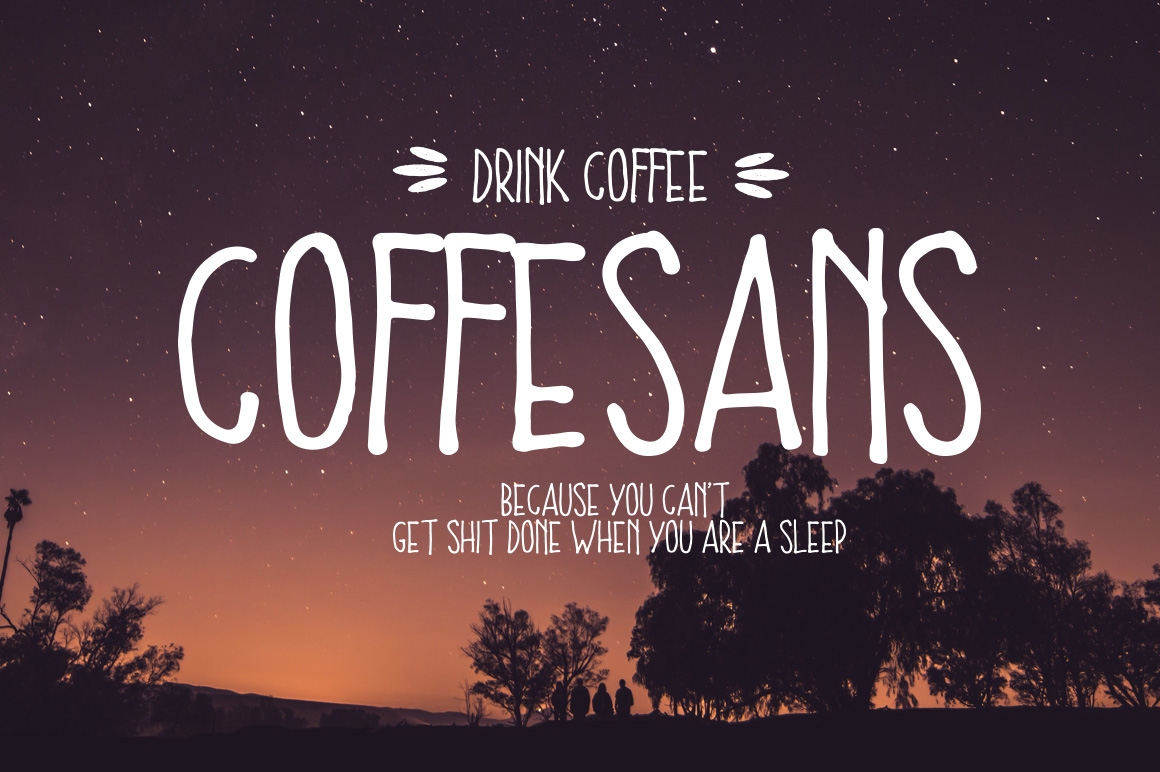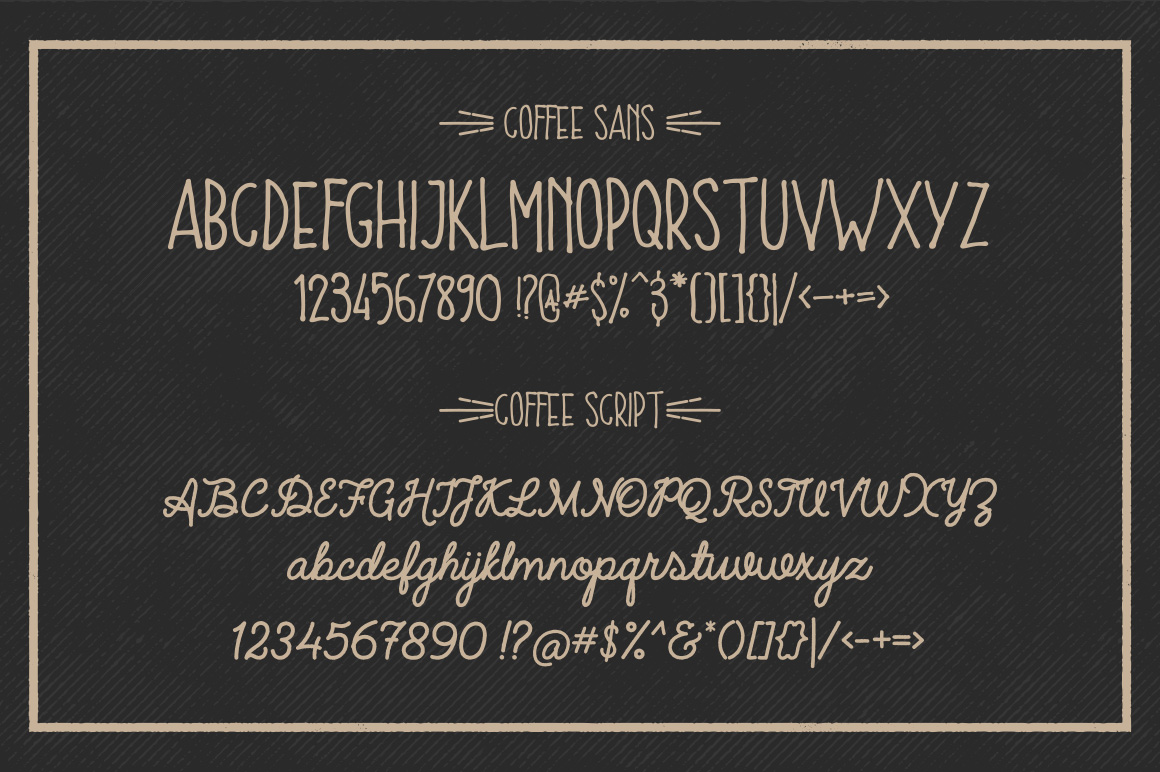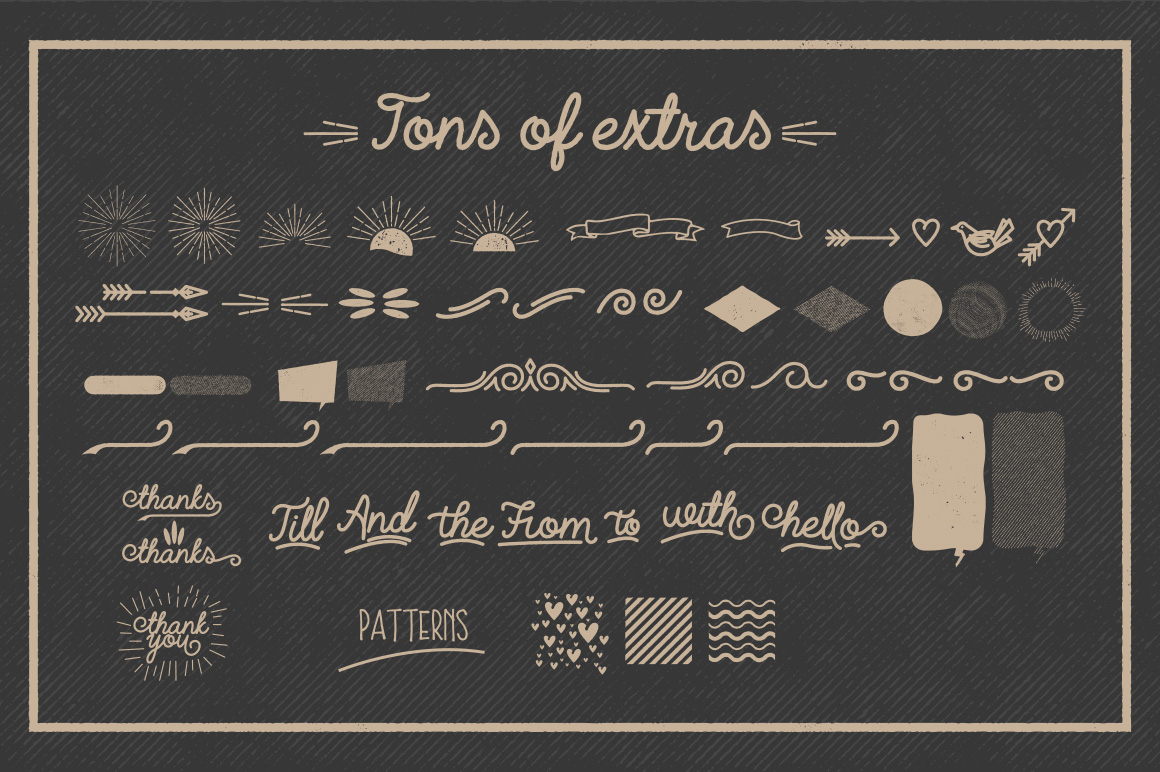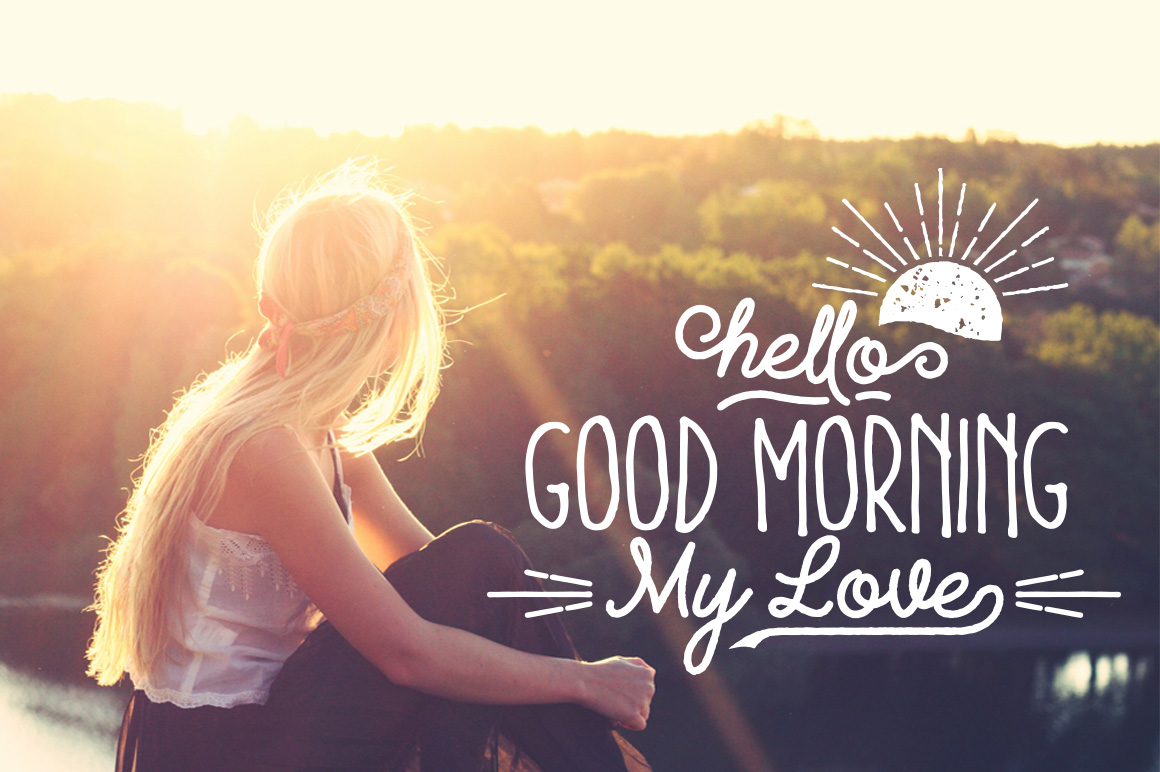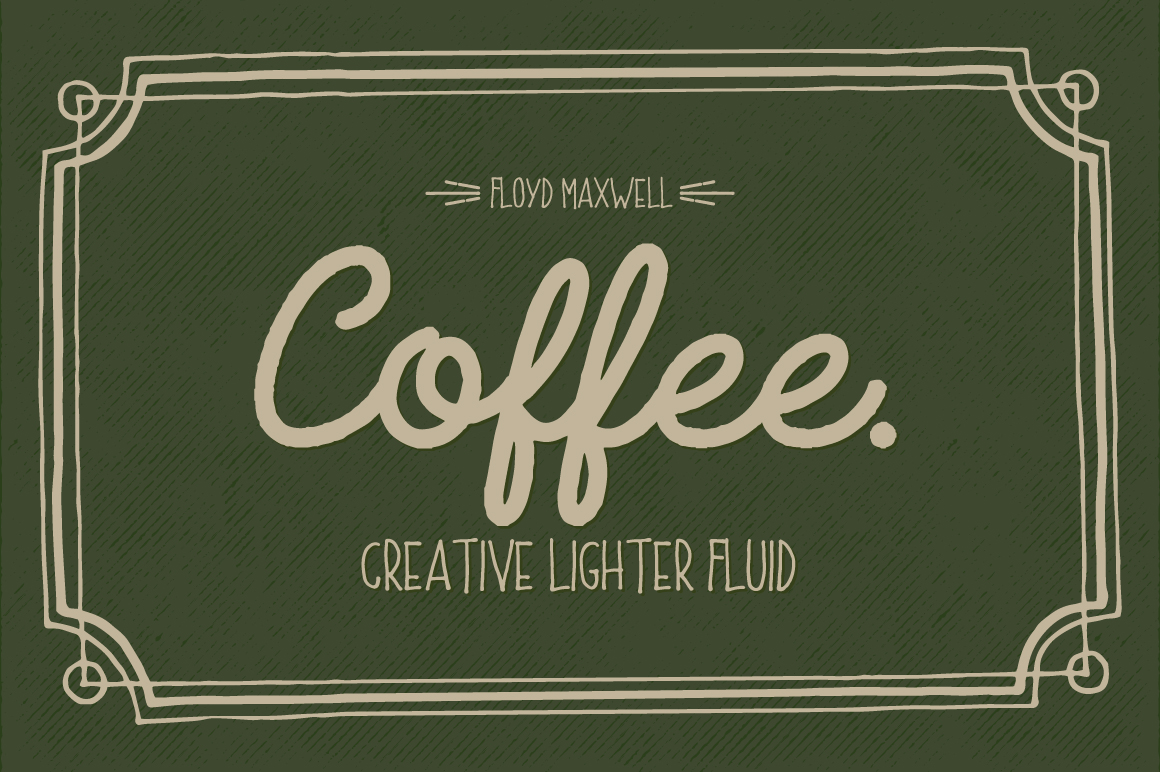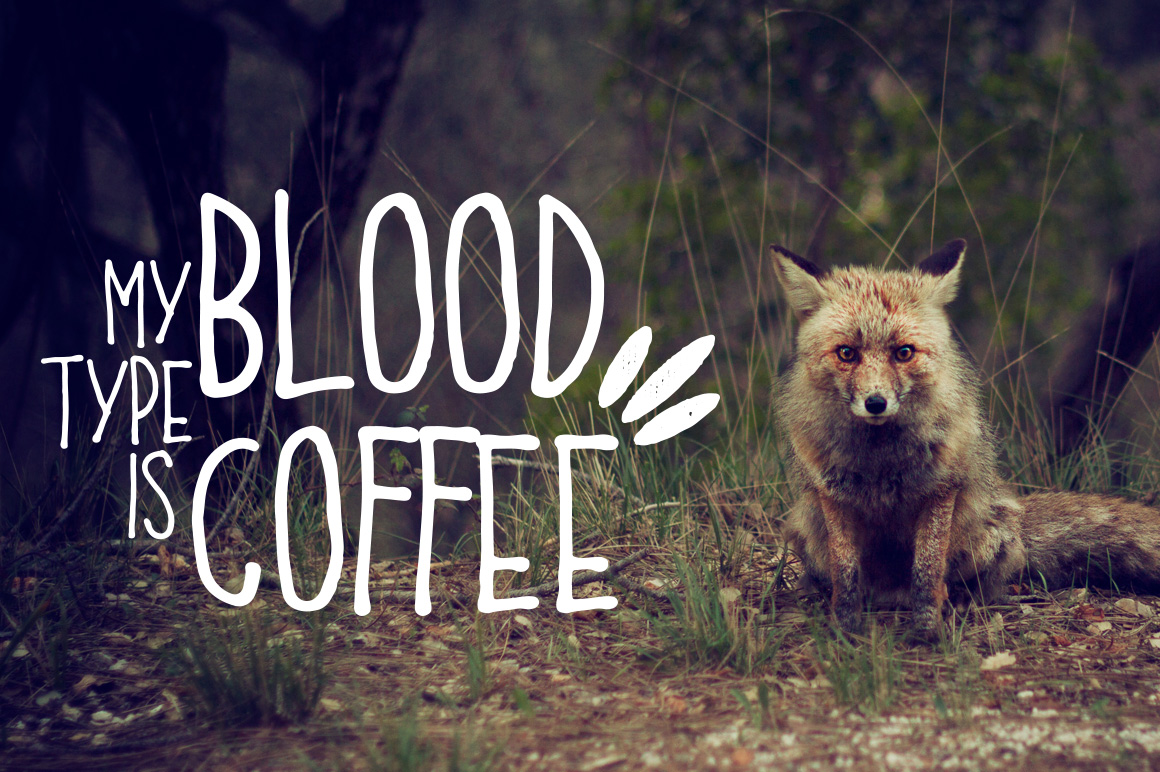
Coffee Font + Extras Font
About Coffee Font + Extras Font
This font duo is phenomenally quaint and friendly; use it to add some warmth to your design work by combining the sans serif design with the script font, and further embellish with the added extras in the set.